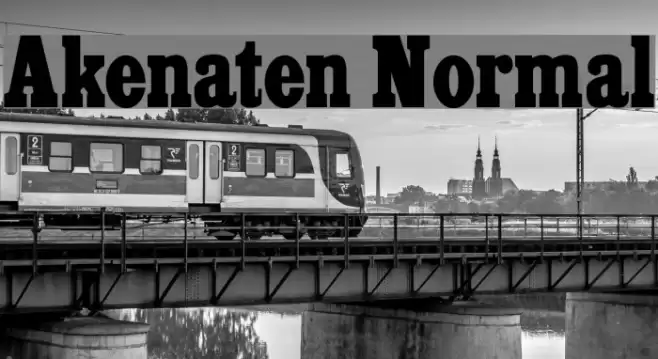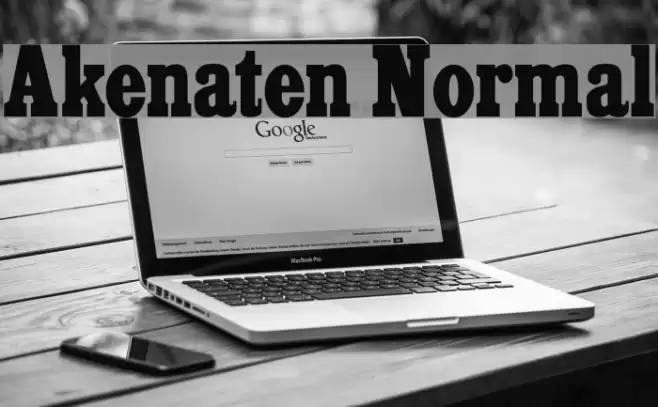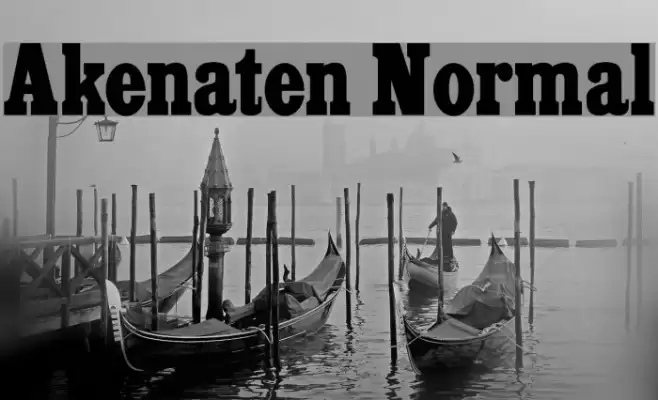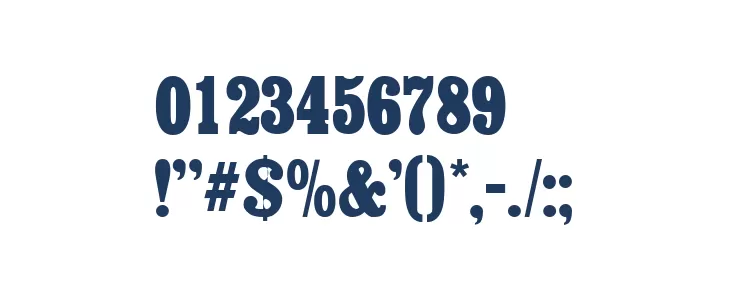
Akenaten Normal
This font features a bold and impactful design, characterized by thick, strong strokes and a commanding presence. The uppercase letters are particularly robust, with a slight curvature that adds a touch of elegance to the otherwise solid structure. The lowercase letters maintain the same boldness, ensuring consistency throughout the typeface. Numbers and special characters are equally prominent, making them stand out in any design. The overall style is reminiscent of vintage poster fonts, suitable for making a statement. The font's high contrast in stroke thickness enhances its readability and visual appeal.
A bold, vintage-style font with high contrast and strong presence from Retro fonts.
- Proposed Projects: Ideal for posters, headlines, branding, and any design requiring a bold statement.
- Contrast: High
- Overall Style: Vintage
- Use Case: Headlines, Logos, Posters